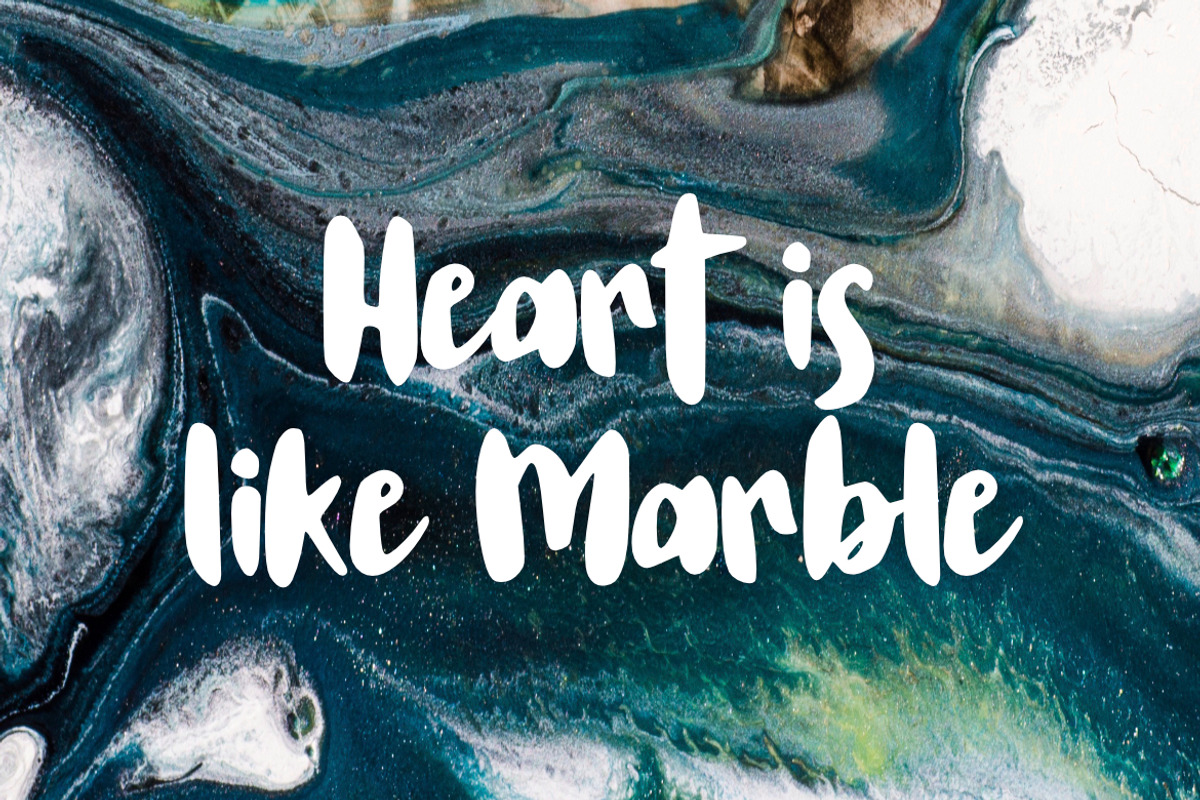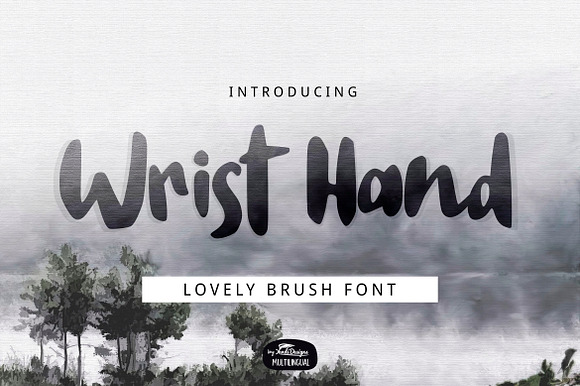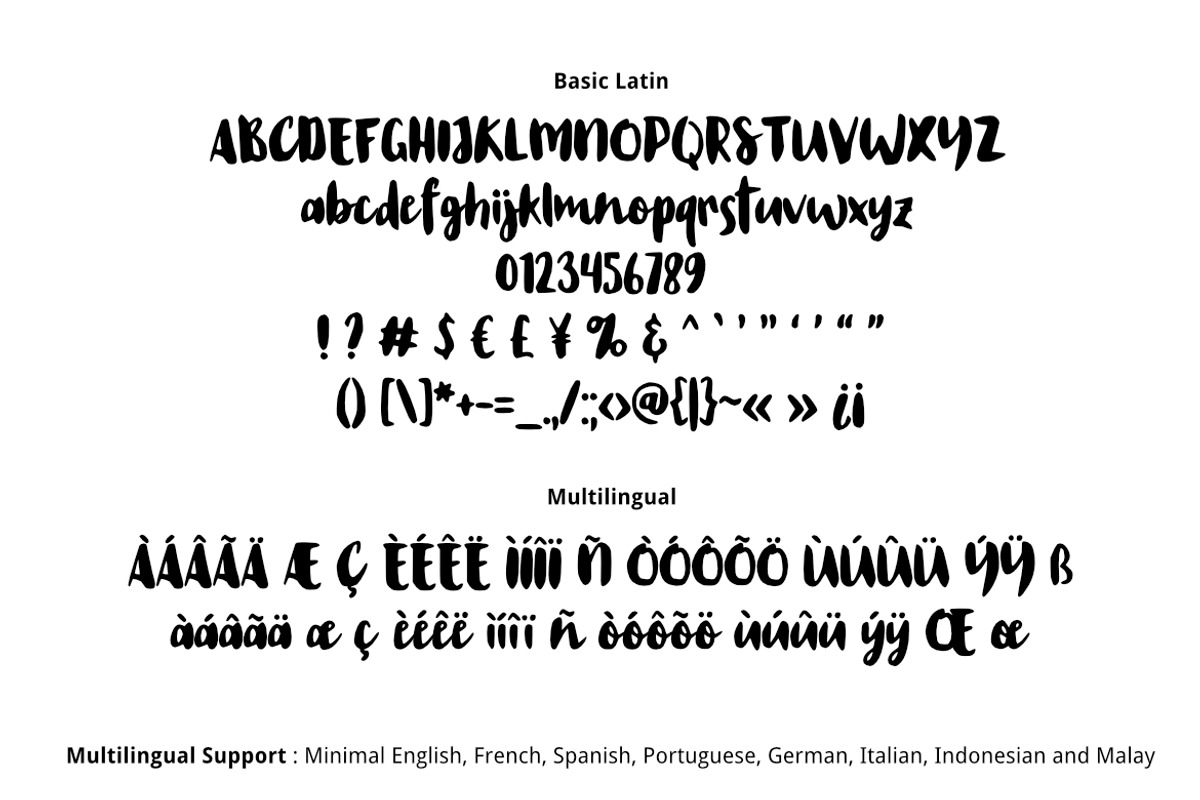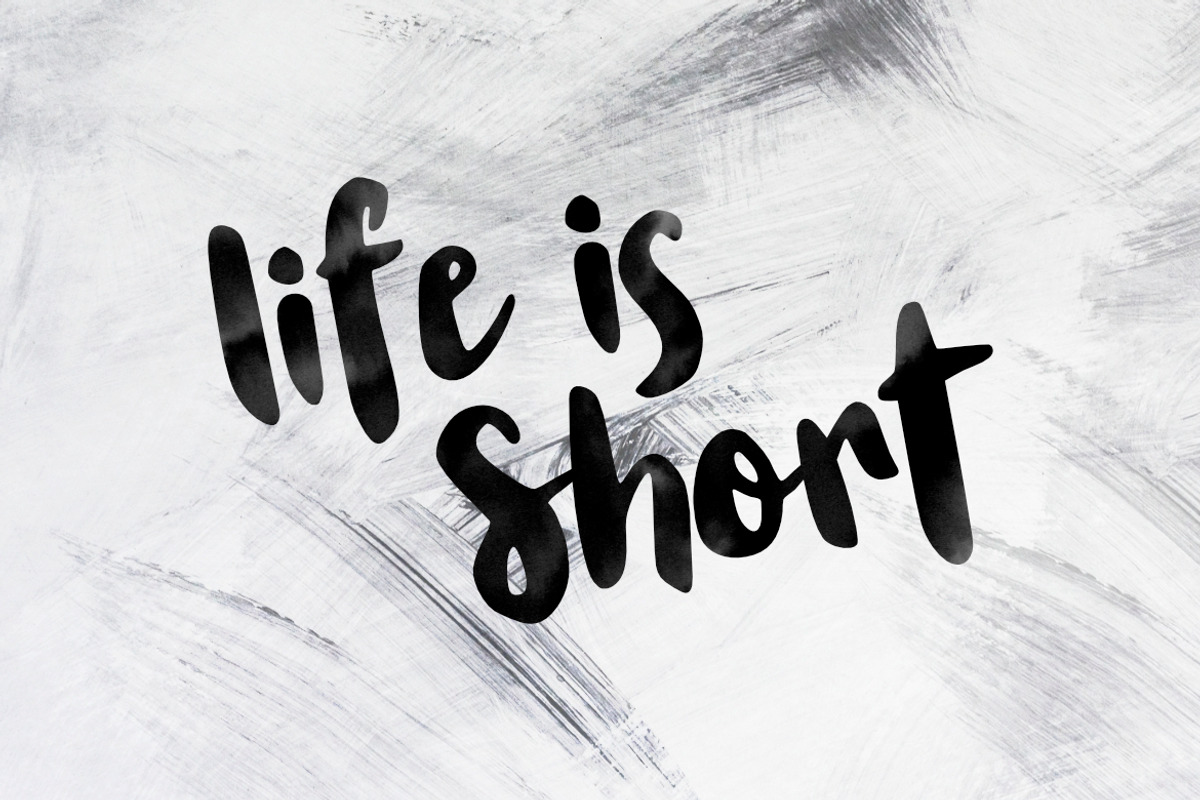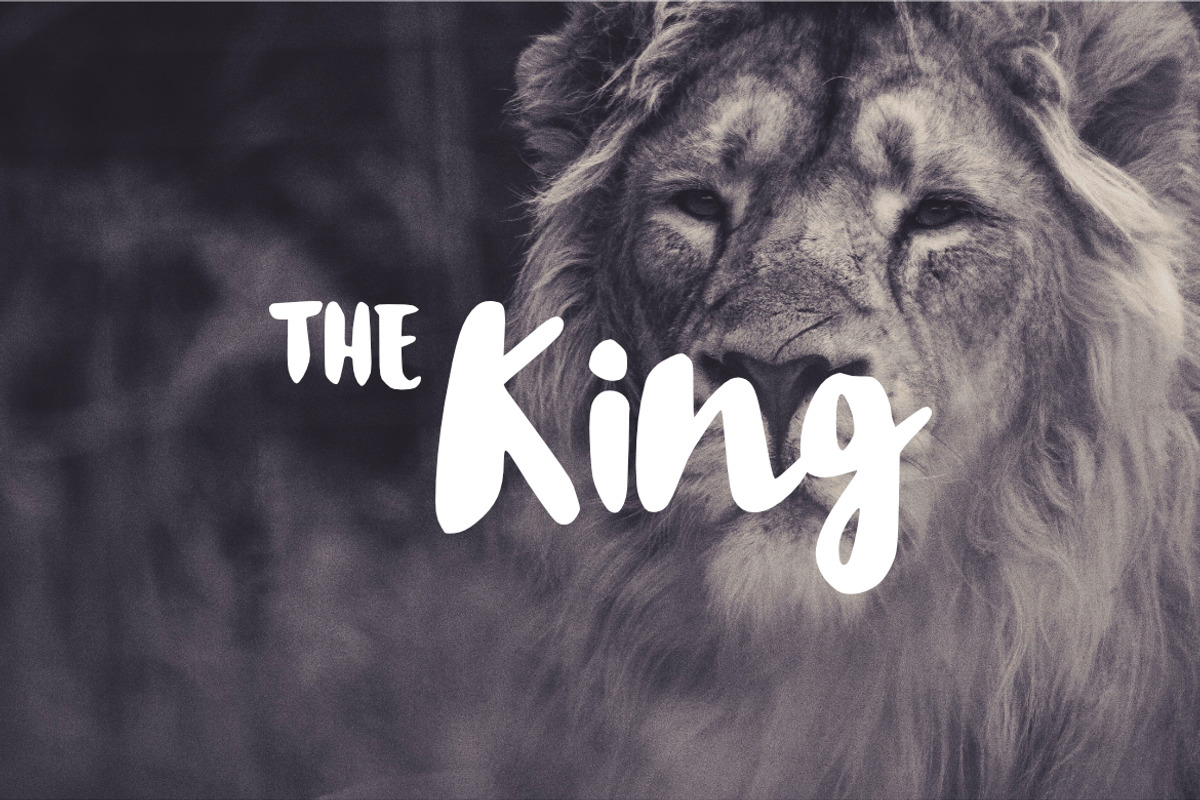
Wrist Hand Brush Font
Artistic and lovely brush font , suitable for many project, signature , quotes, logo , doodle, heading , title etc.
Why Wrist Hand Brush Font is worth a look
Wrist Hand Brush Font by YandiDesigns fits naturally into Branding, posters, packaging, typography.